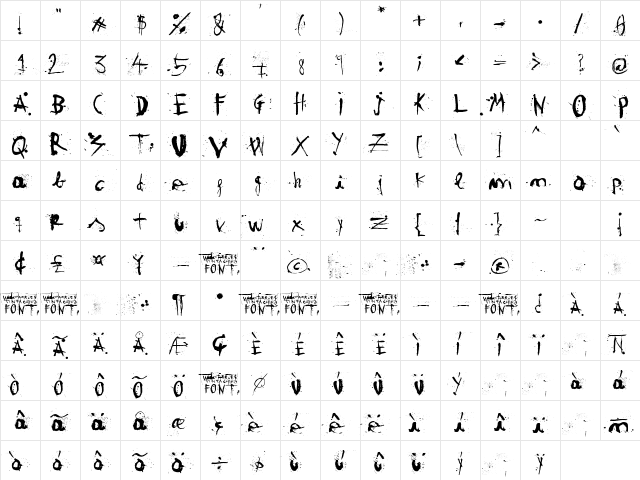
Complete woodcutter TINTA CHINA Regular glyph index. Displaying only characters natively supported by woodcutter TINTA CHINA Regular font.
woodcutter TINTA CHINA echoes the hand-painted signage and woodblock typography of the American frontier, with a warm, rugged personality.
Font Pairing: Combine woodcutter TINTA CHINA with a simple slab or neutral sans - period-accurate companions reinforce the vintage feel without competing for attention.
Pro Tip: Use woodcutter TINTA CHINA for short, impactful bursts of text - it shines in poster headlines and product names rather than extended copy.